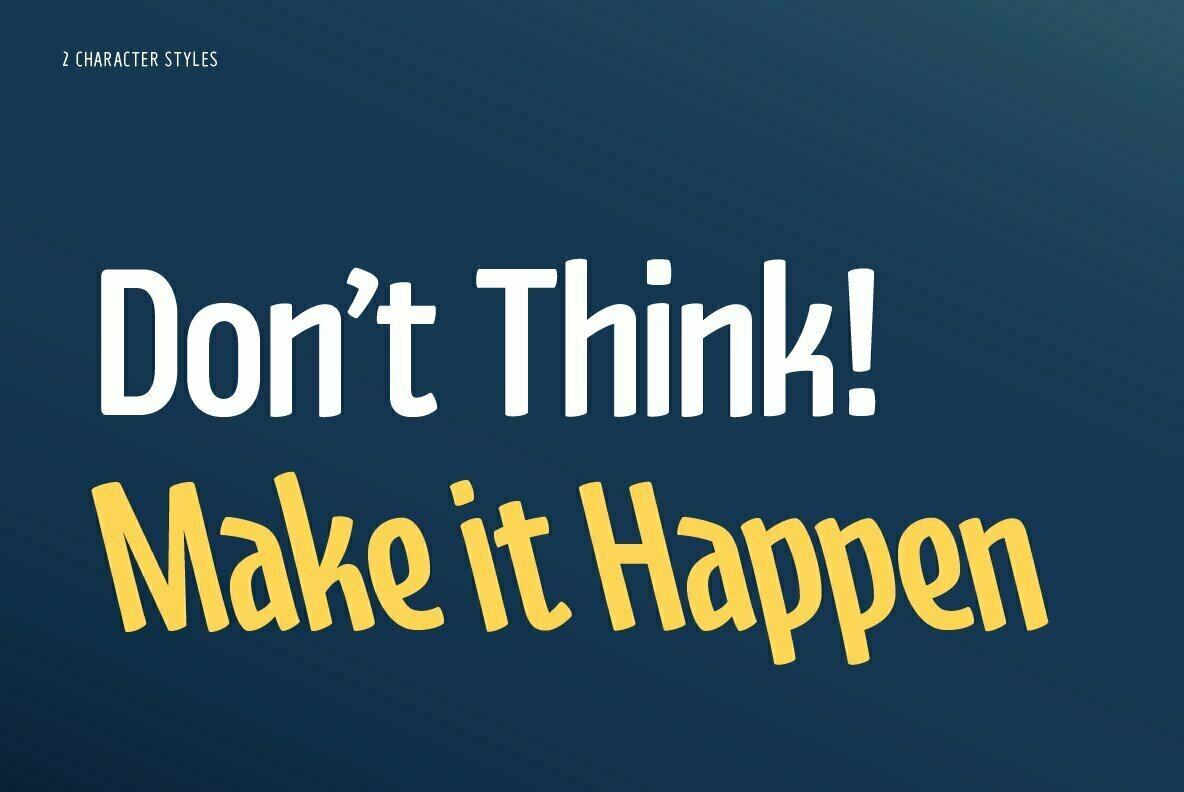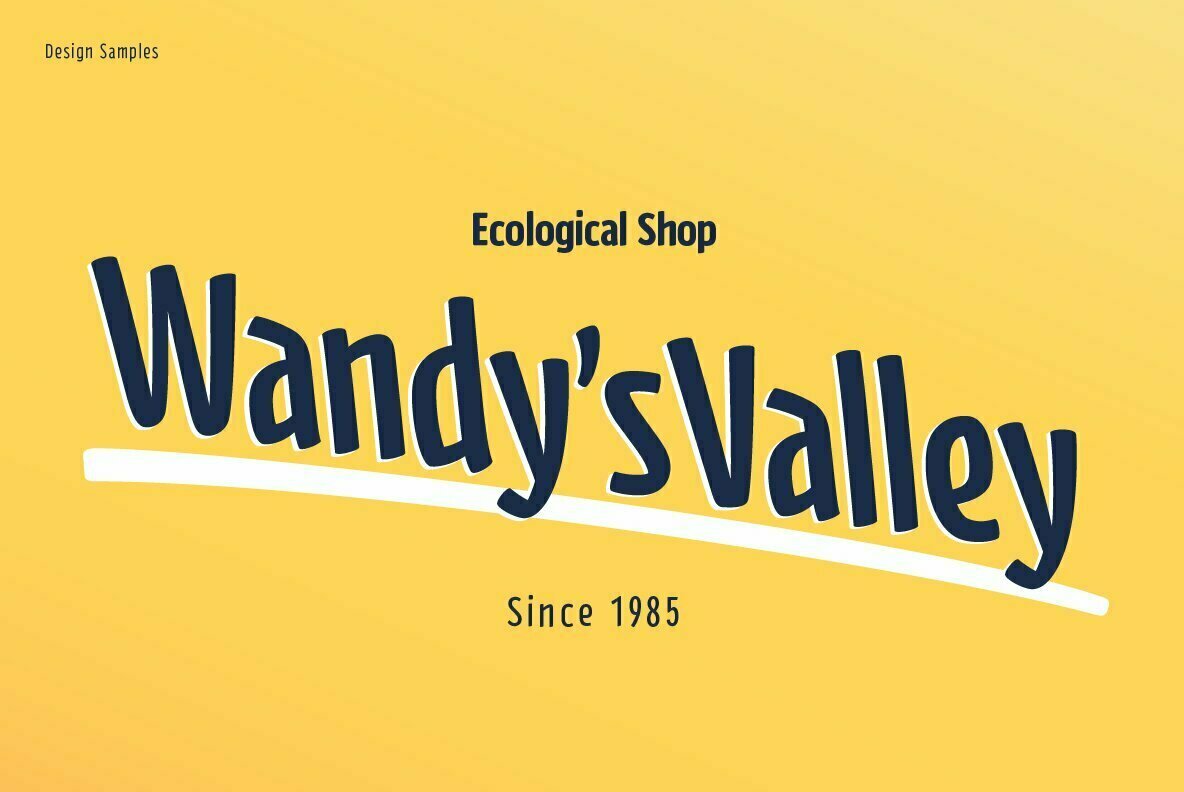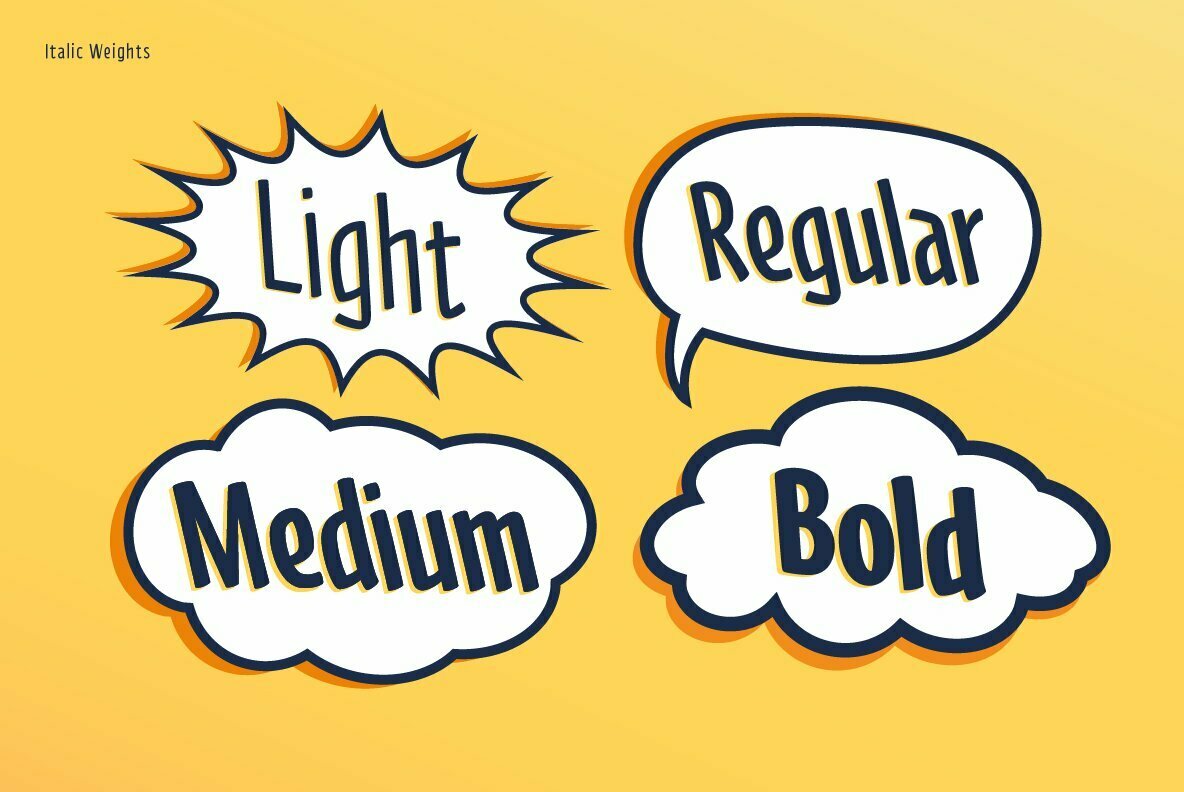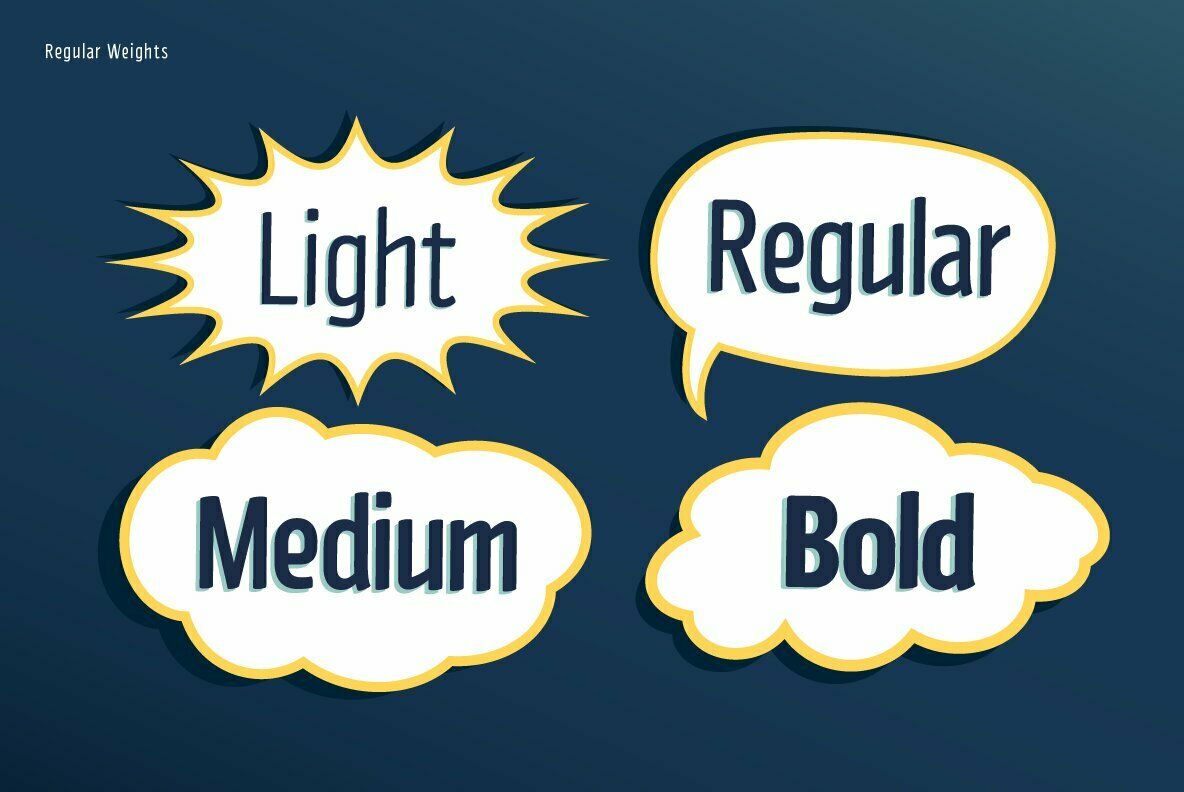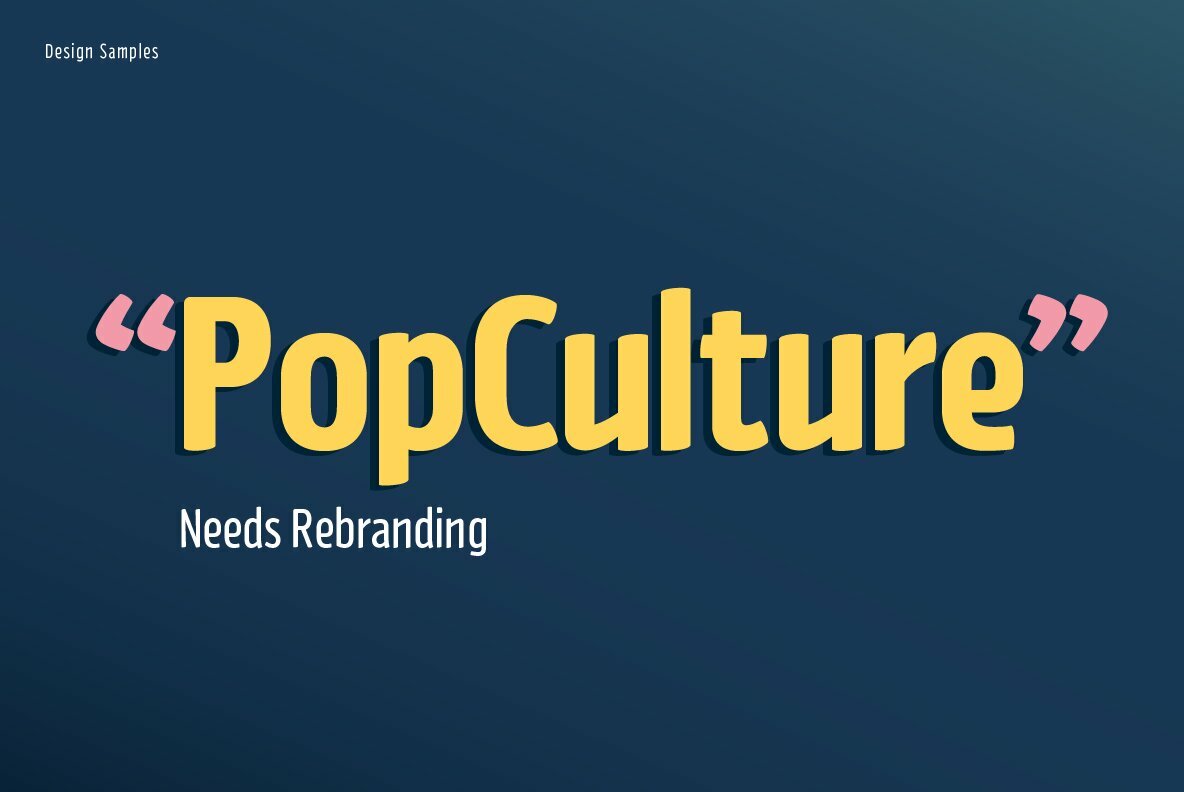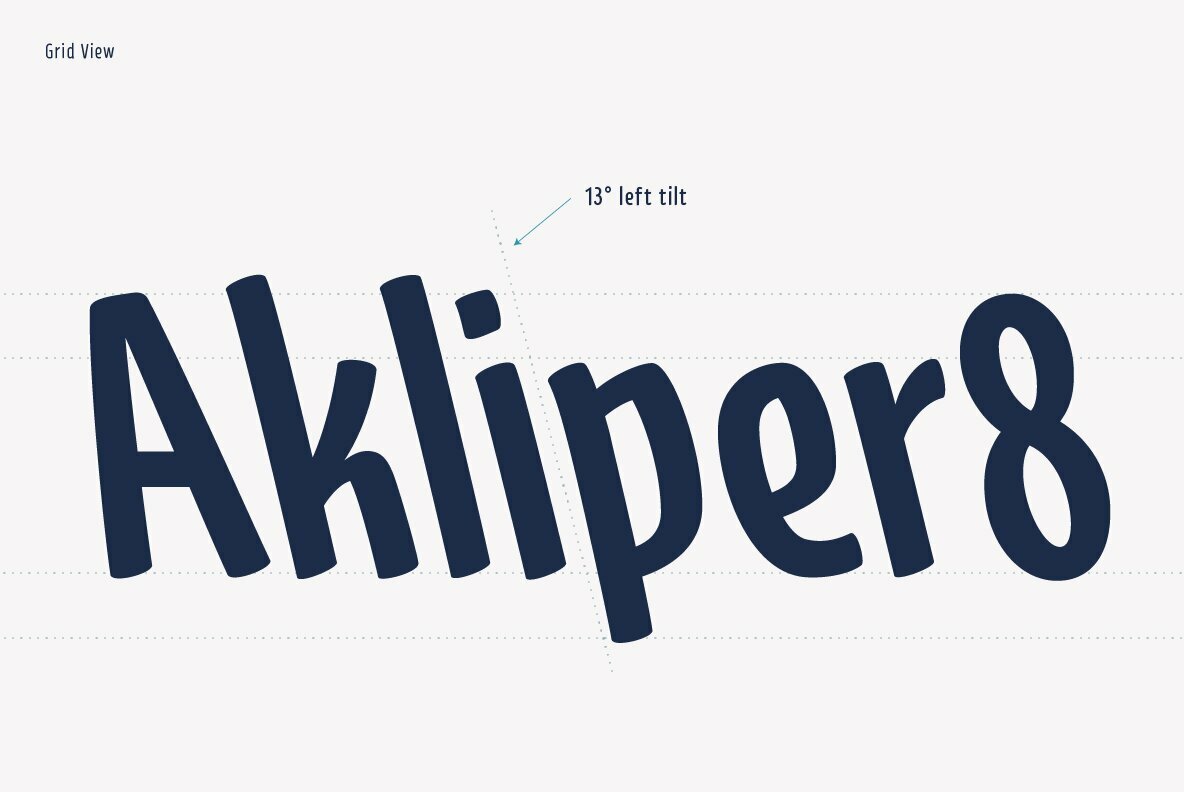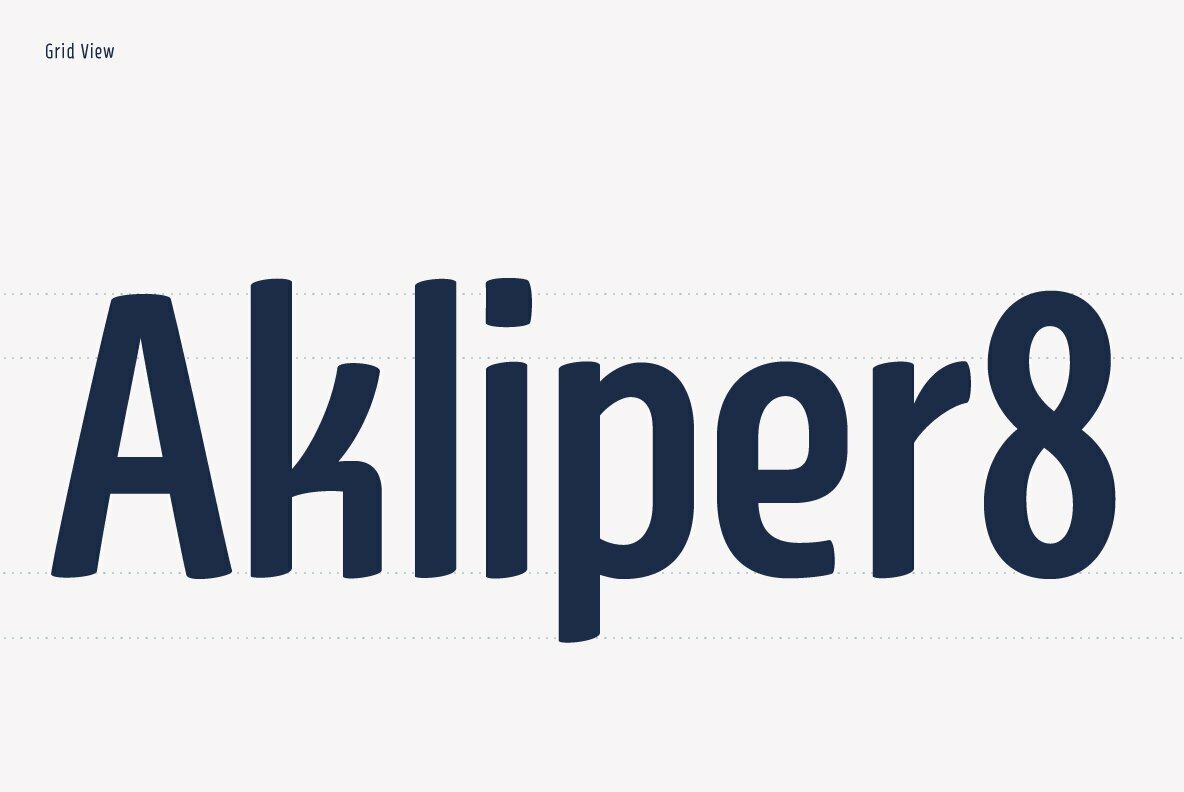
Ekaliptus Font
The Ekaliptus typeface by Yinon Ezra offers a uniquely condensed yet humanistic design, perfect for headlines and logos. Its four weights, each with a matched italic, create a versatile toolkit for designers. Ekaliptus combines modern aesthetics with warmth, making it an ideal choice for distinctive branding.Ekaliptus: Condensed and Humane Display Typeface